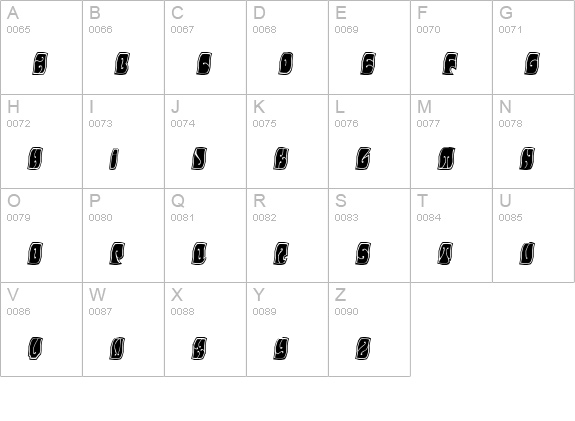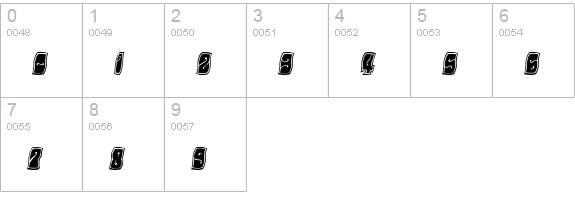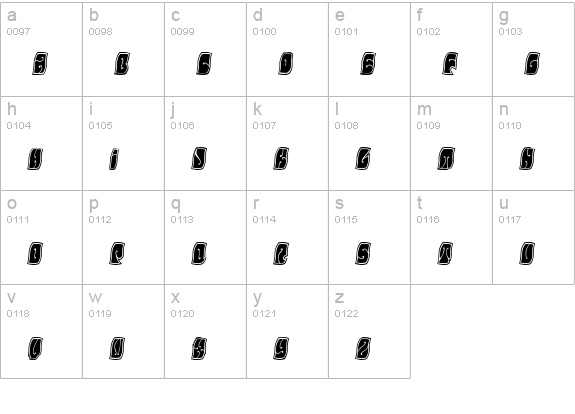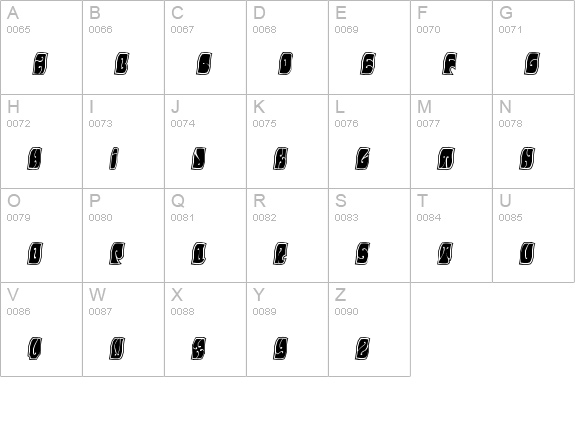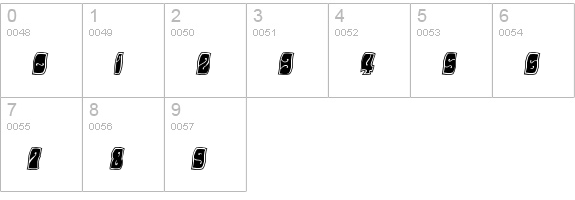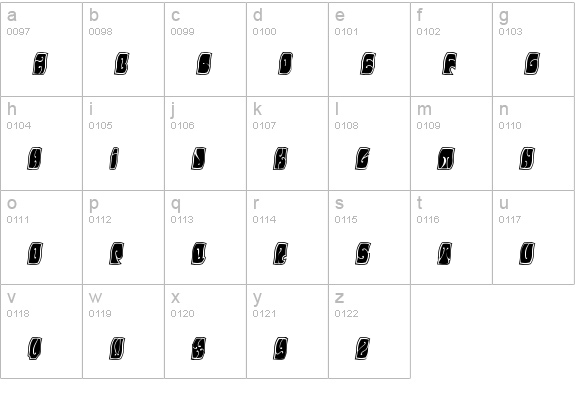
Electorate Blue Font Details
Electorate Blue is a modern and stylish font that exudes sophistication and elegance. Its sleek lines and contemporary design make it perfect for a wide range of projects, from branding to editorial design. The bold, eye-catching nature of Electorate Blue ensures that your message will stand out and make a lasting impression. What sets Electorate Blue apart is not just its striking appearance, but also its versatility. Whether you're designing a logo, crafting a social media post, or creating a poster, this font is sure to elevate your work to the next level. And the best part? Electorate Blue is completely free to download at FontsMarket.com. That's right, you can access this stunning font at no cost, making it an invaluable addition to your design toolkit. Don't miss out on the opportunity to enhance your projects with the timeless beauty of Electorate Blue.